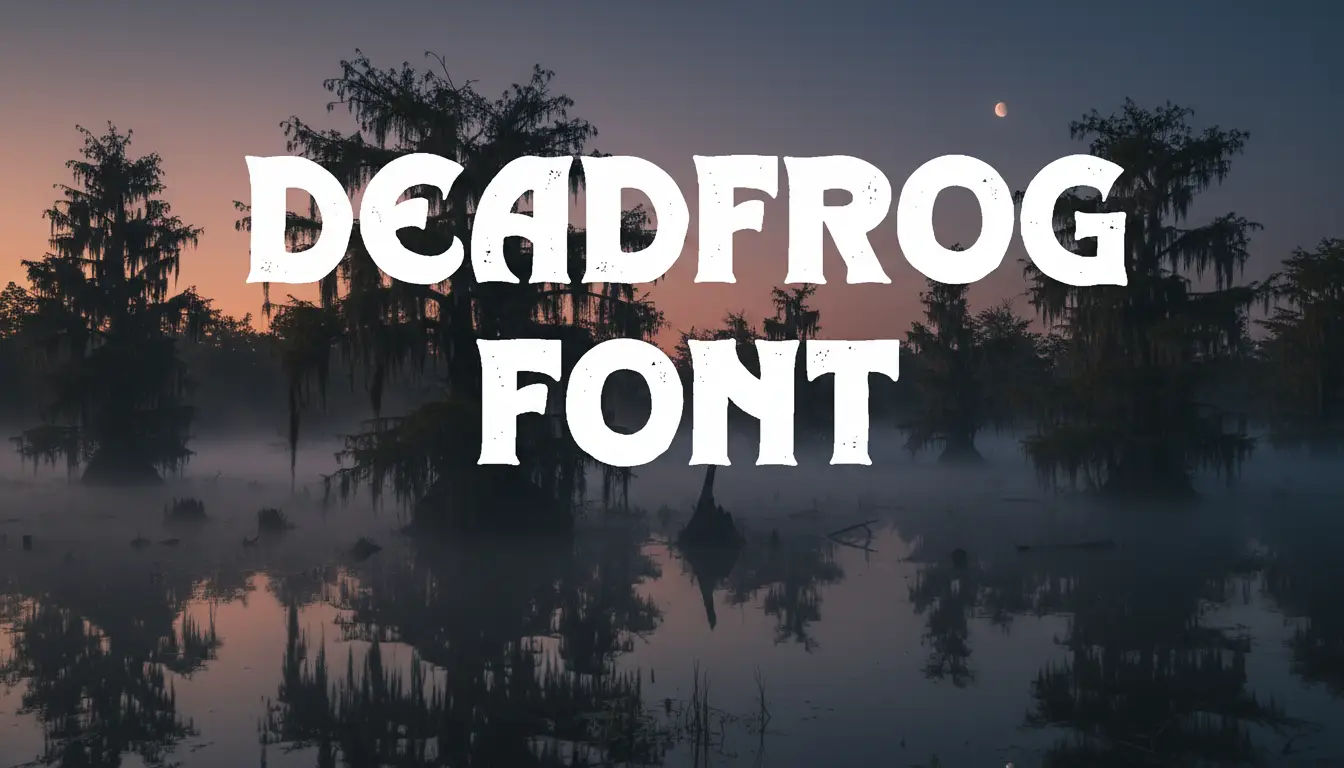
DeadFrog Font
DeadFrog is a fancy font created by @typealiens and released through TypeAliens. Bold and full of character, it's built to stand out rather than blend in. You can download it for free and test it with your own words in the preview above.
With complete upper and lowercase letters and all ten digits, DeadFrog is ready for real wording, not just a single headline. Common punctuation such as &, !, ? and @ is included as well. It doesn't include accented letters such as é or ñ, which makes it an English-only font.
Think of DeadFrog for posters, logos and eye-catching headlines. Use it for one standout word or headline and let simpler fonts handle the rest.
No. DeadFrog has no accented letters such as é, ñ or ü, so it's best for English text.